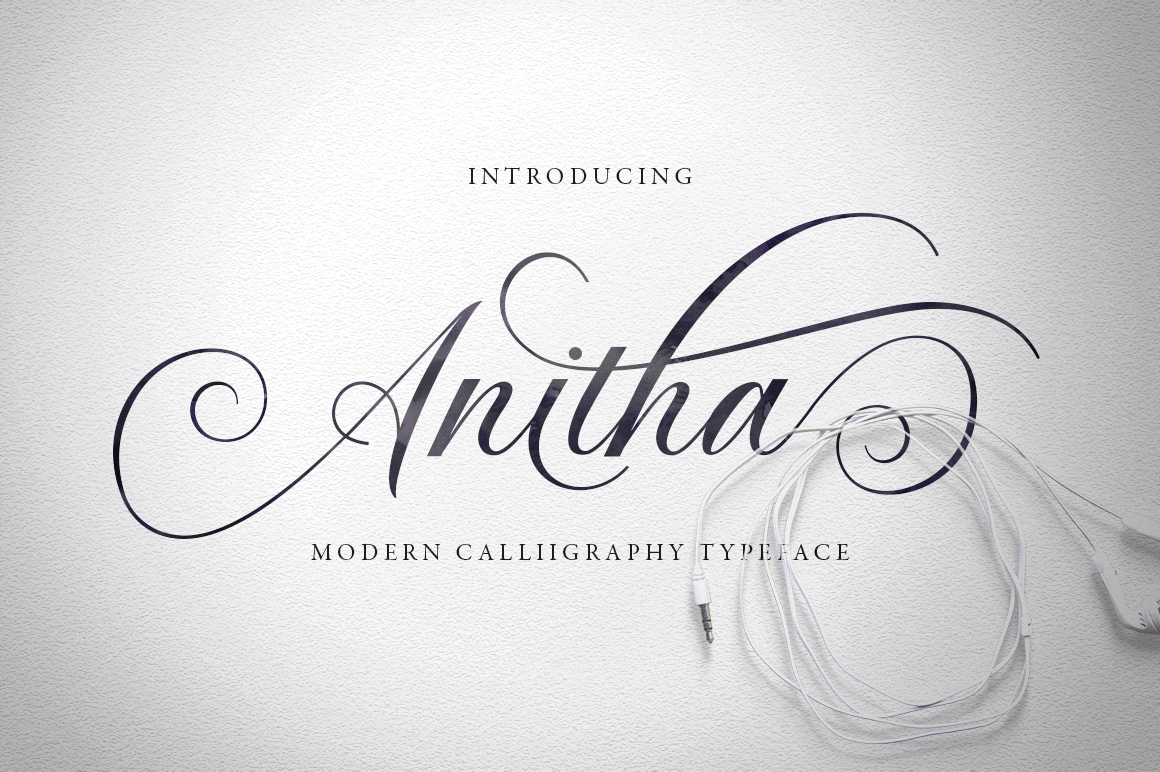
Anitha//Wedding Calligraphy Font
Anitha is another lovely modern calligraphy typefaces, which is combining the style of classic calligraphy with an modern style. combines from copperplate to contemporary typeface with a dancing baseline, modern and elegant touch. Anitha features 496 glyphs and alternate characters Include . including initial and terminal letters, alternates, ligatures and multiple language support..
The Features of this fonts is;
Standart ligatures
Discretionary ligatures
Swash Alternates
Stylistic sets